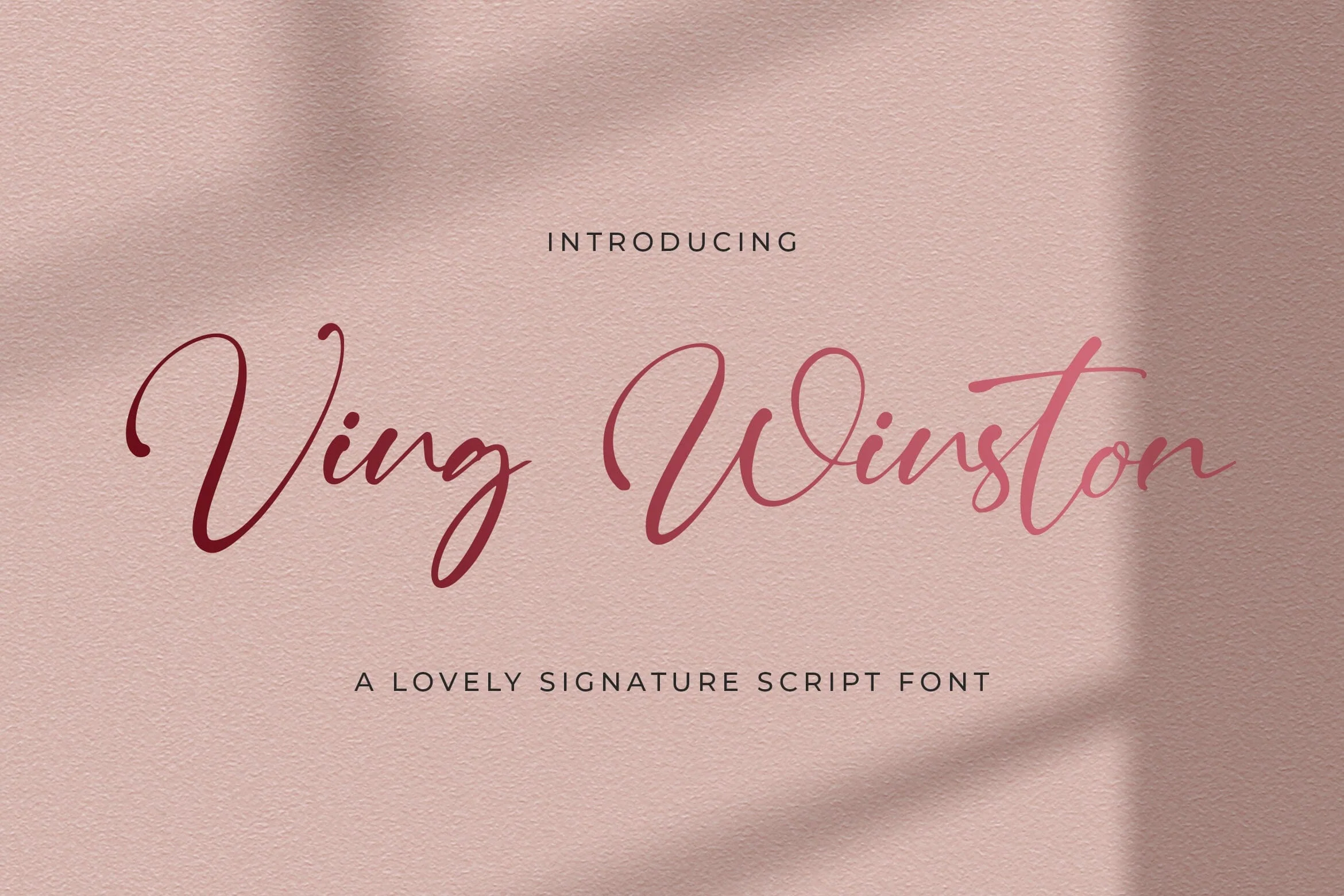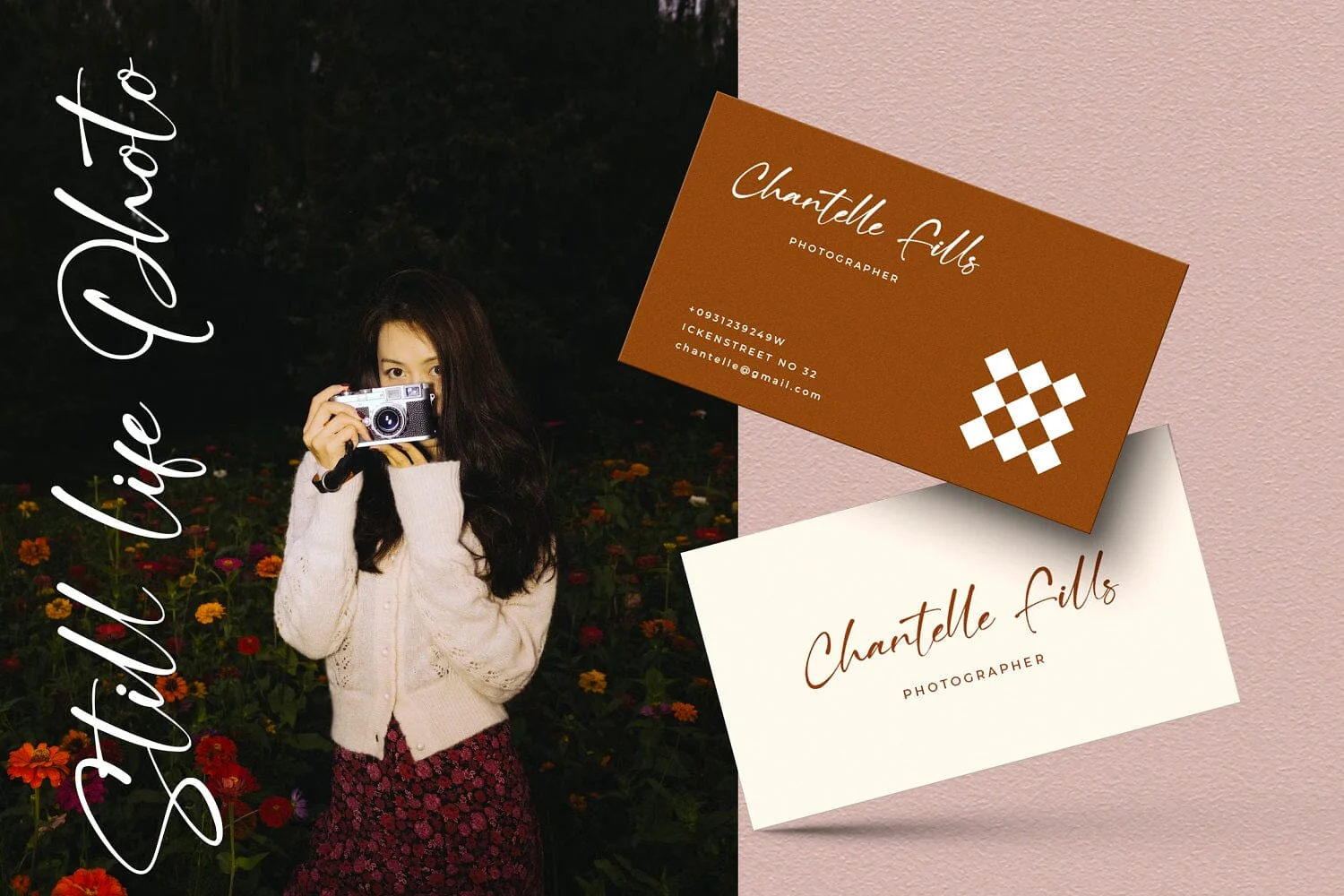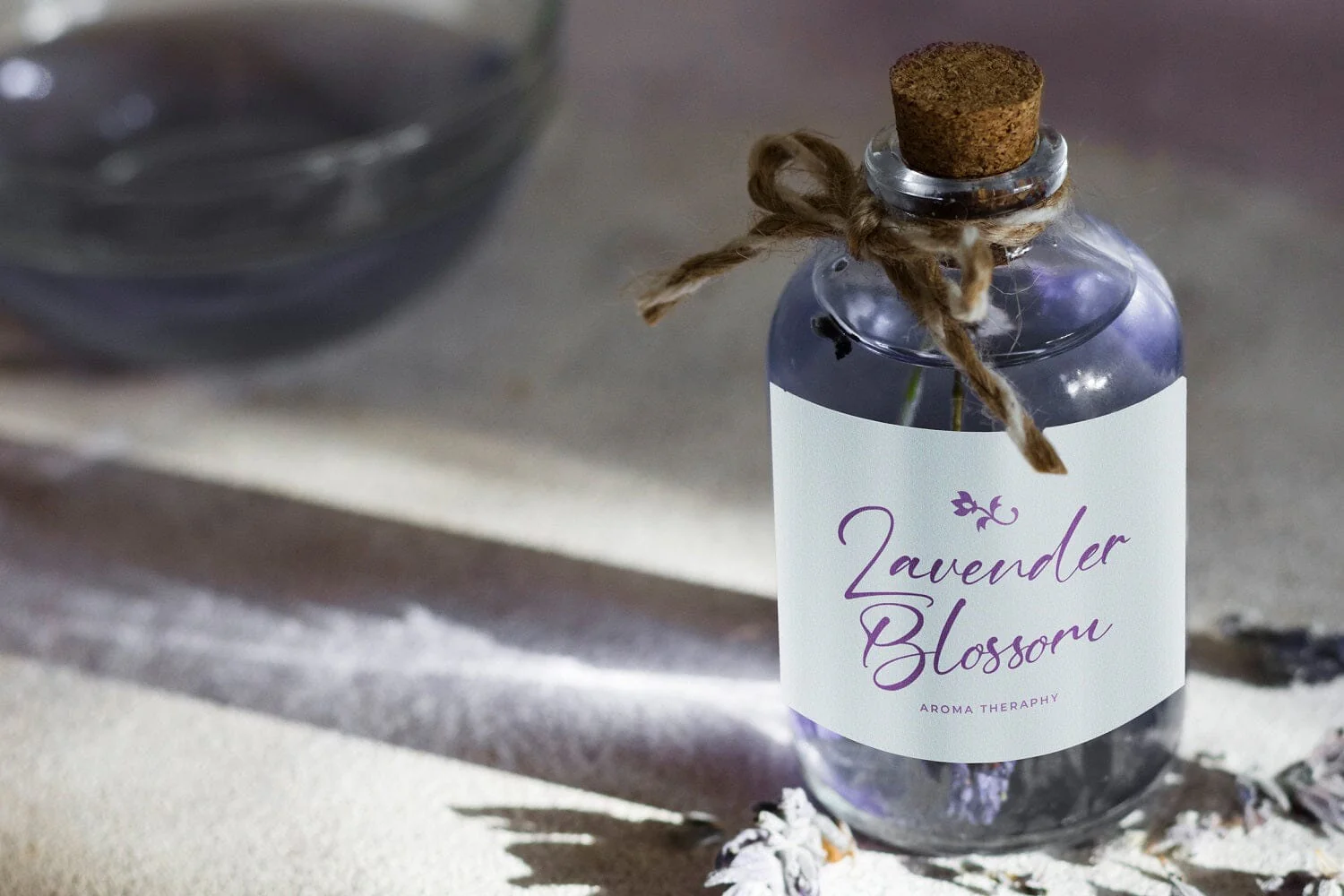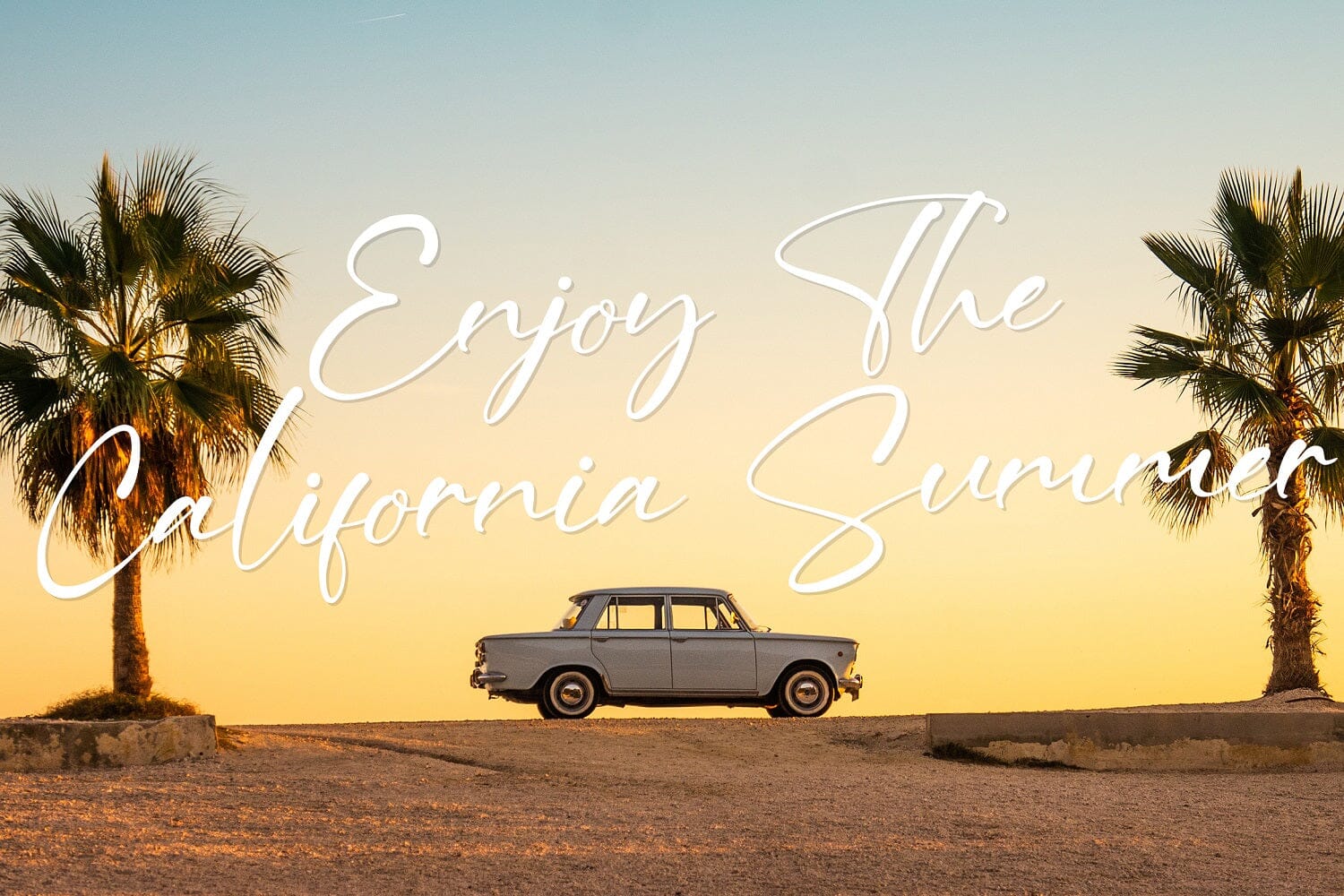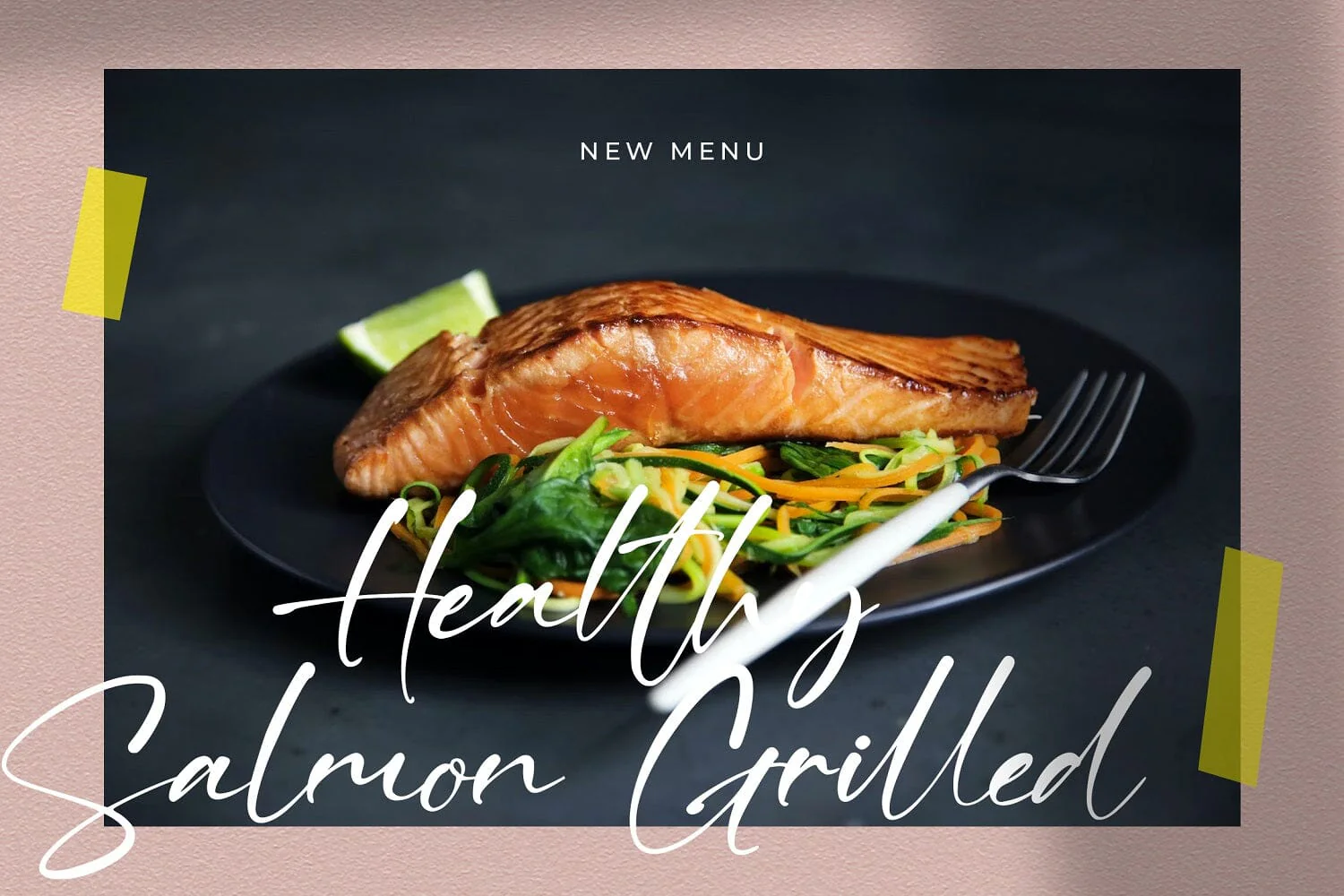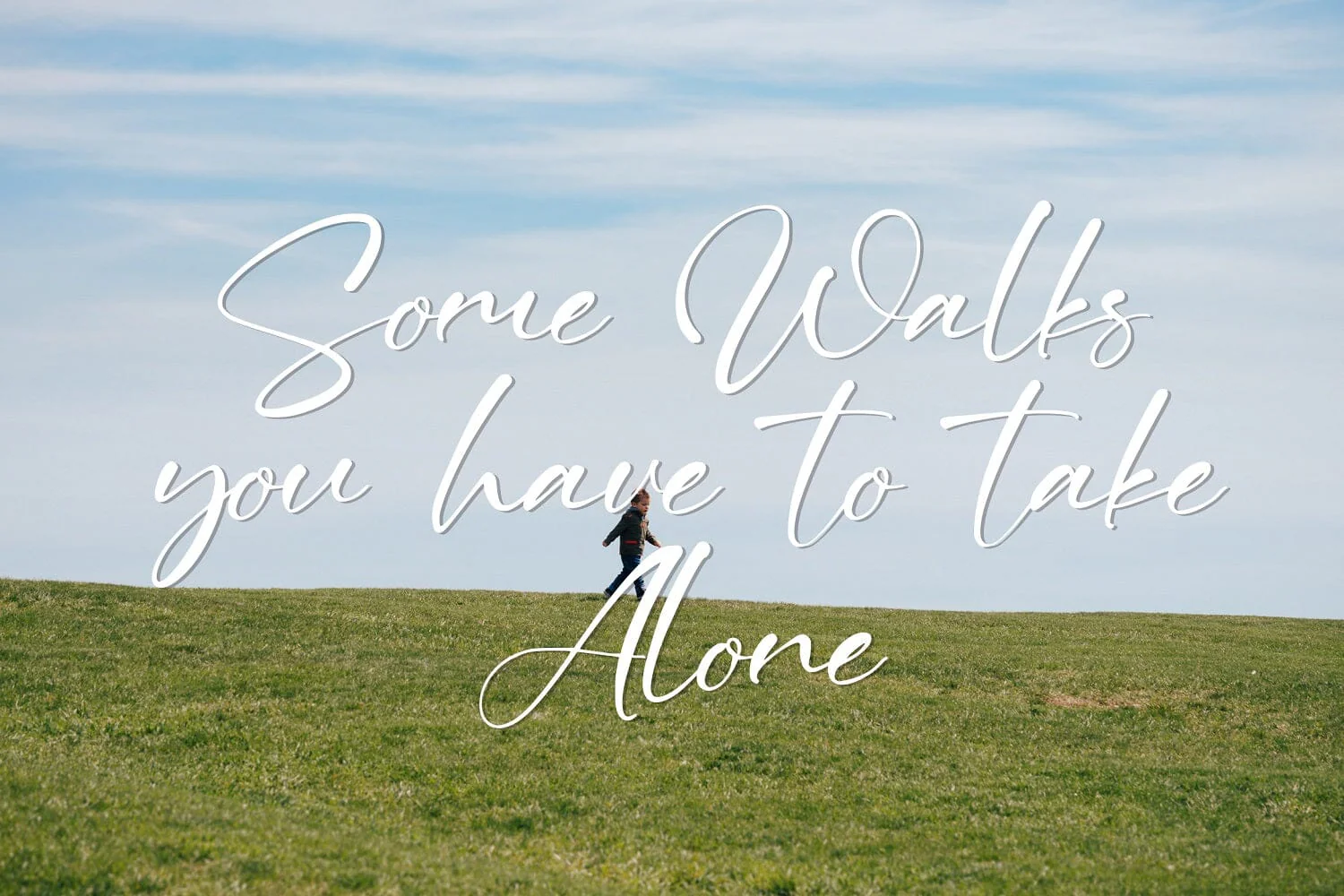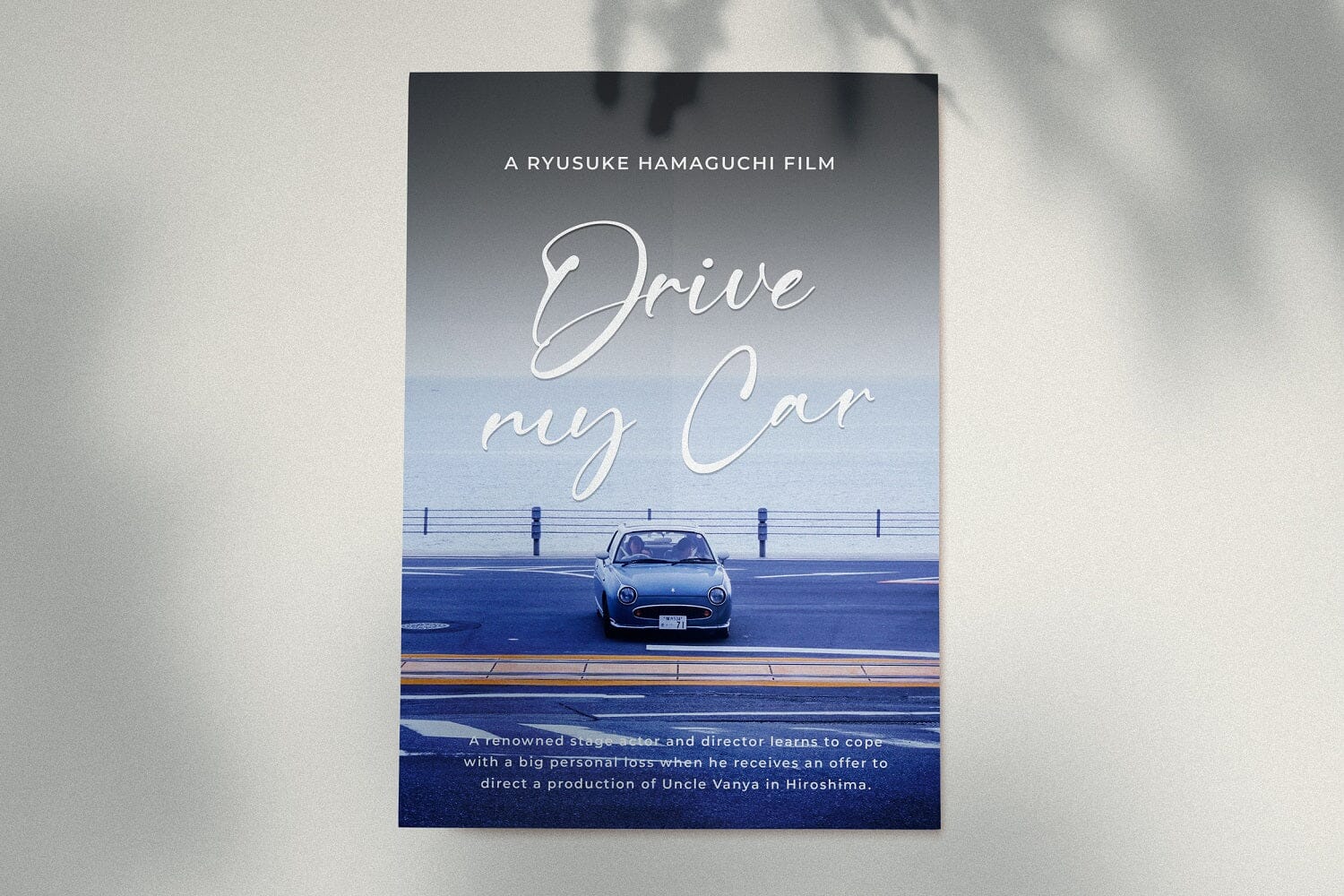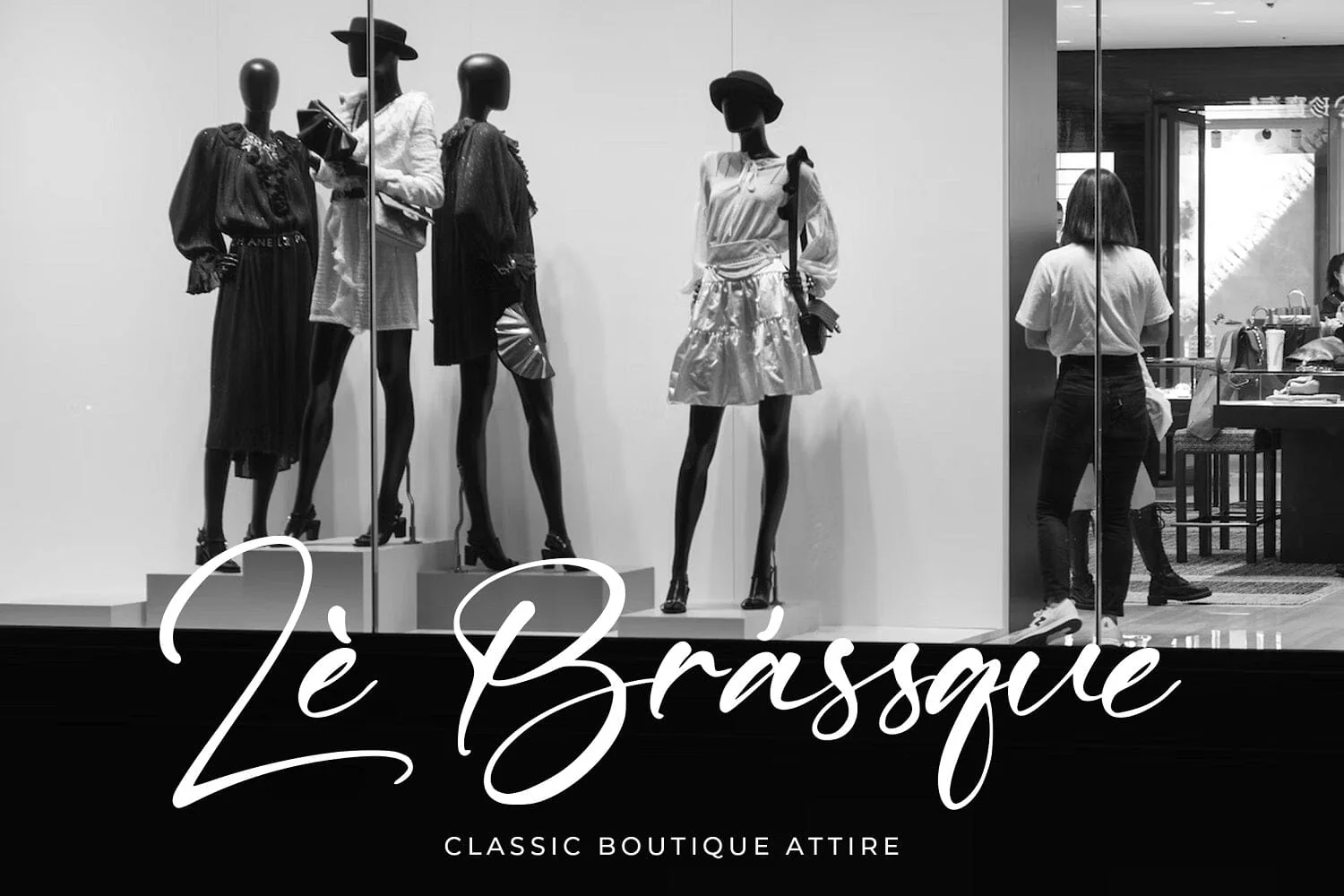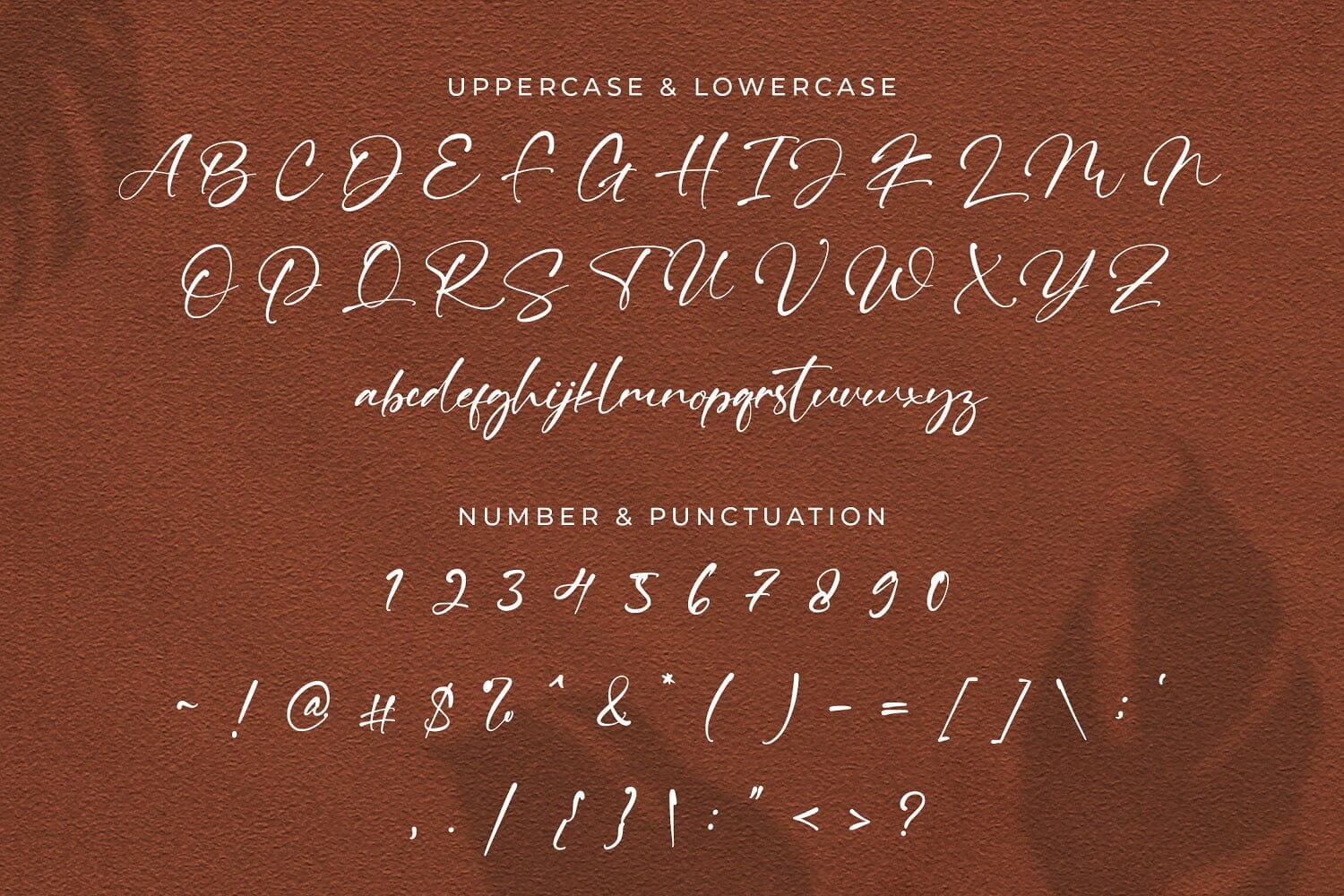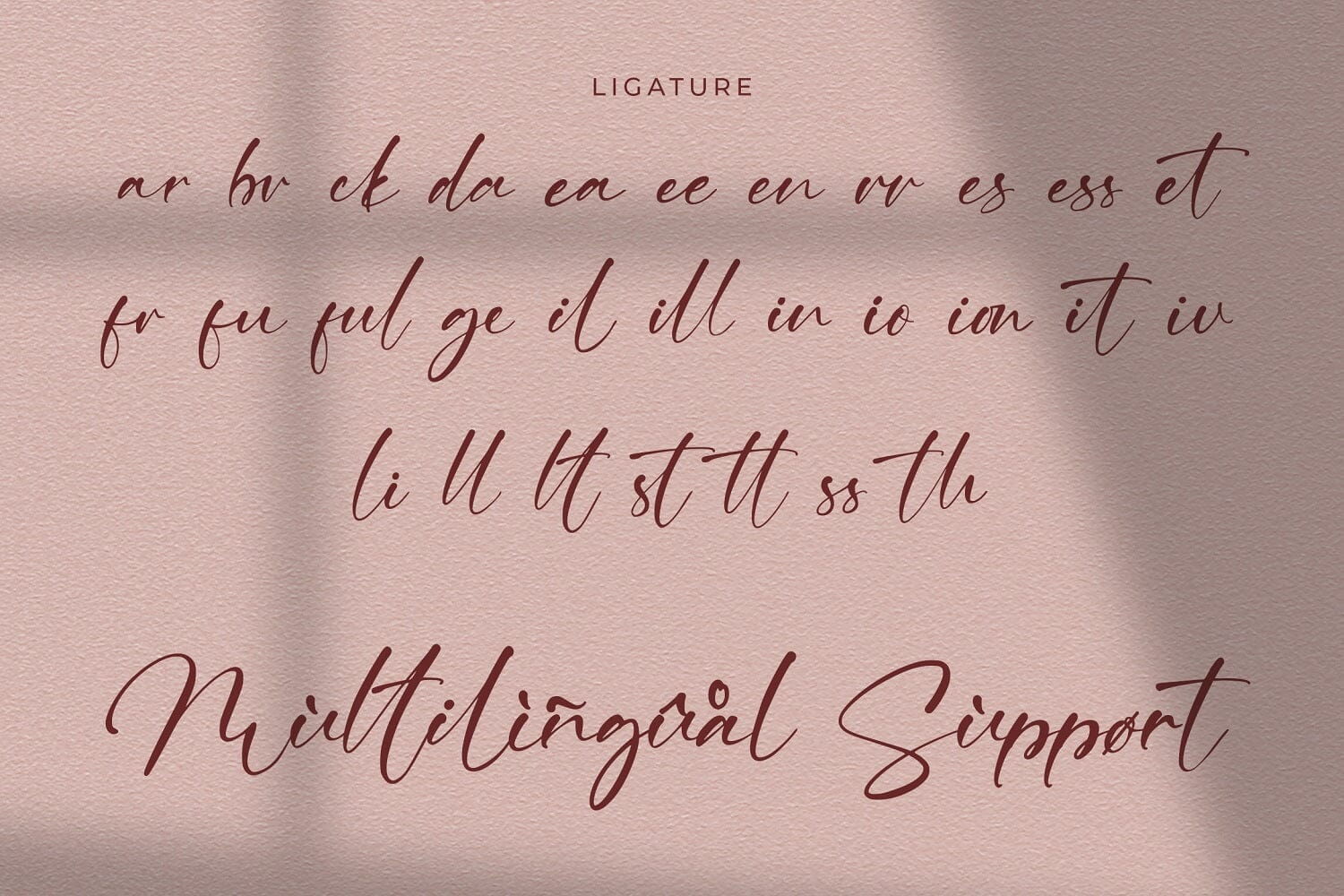
Ving Winston - Signature Font
Introducing Ving Winston - Signature Font
Ving Winston is a delicate, elegant and flowing handwritten signature script font. It has beautiful and well balanced characters and as a result, it matches a wide pool of designs. Add it to your most creative ideas and notice how it makes them come alive!
- Alternates & Ligatures
Introducing Ving Winston - Signature Font
Ving Winston is a delicate, elegant and flowing handwritten signature script font. It has beautiful and well balanced characters and as a result, it matches a wide pool of designs. Add it to your most creative ideas and notice how it makes them come alive!
- Alternates & Ligatures